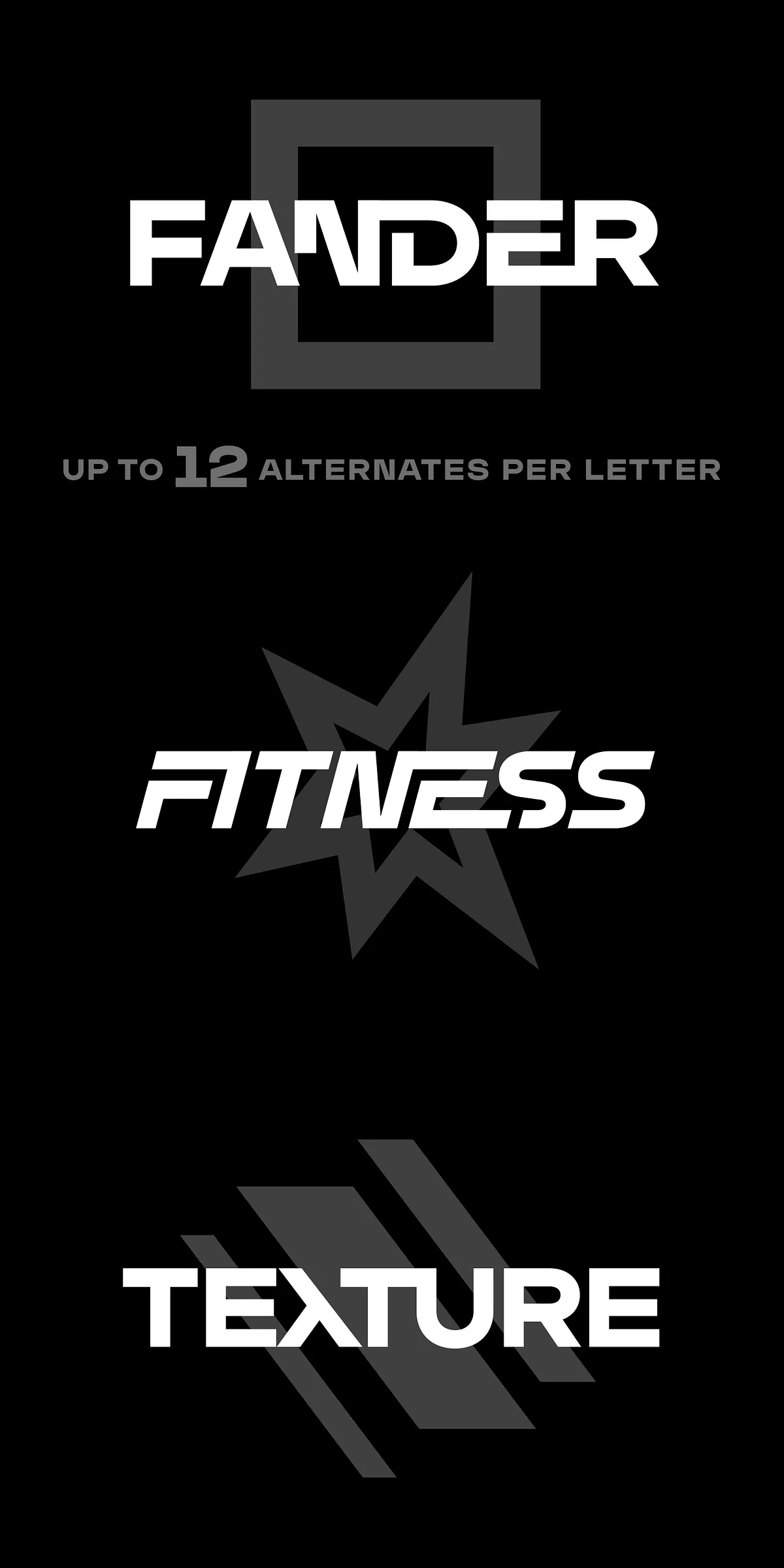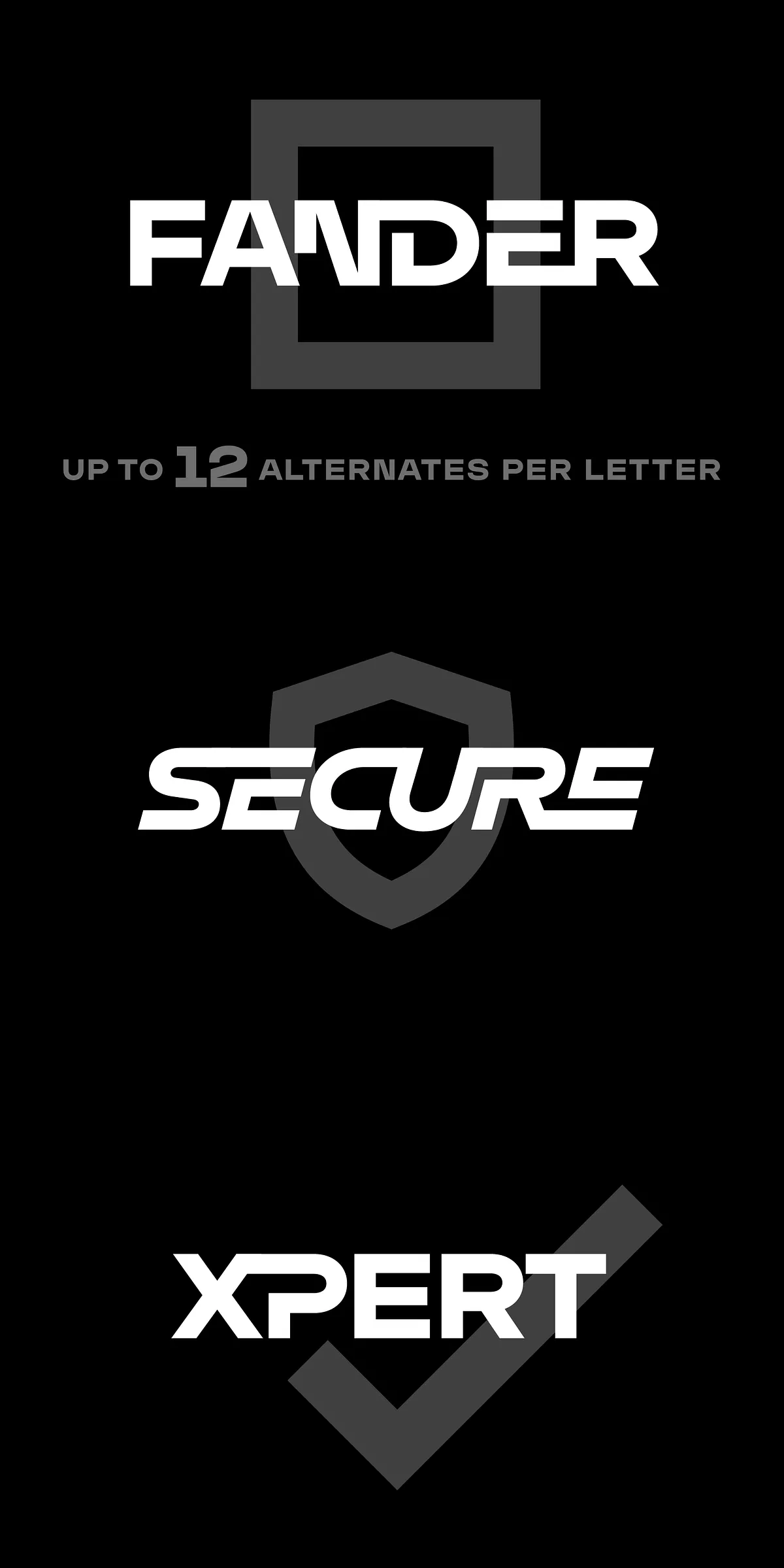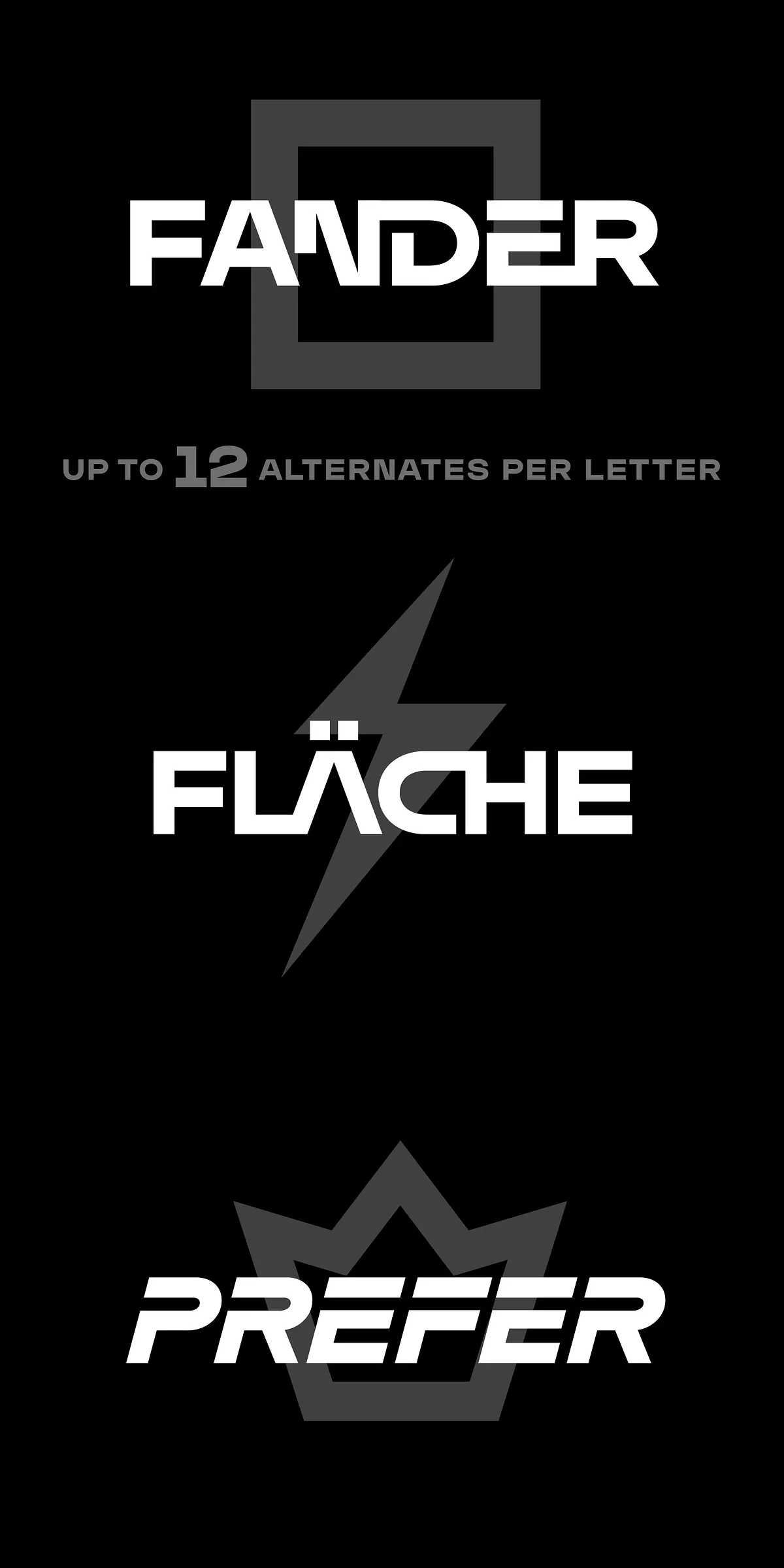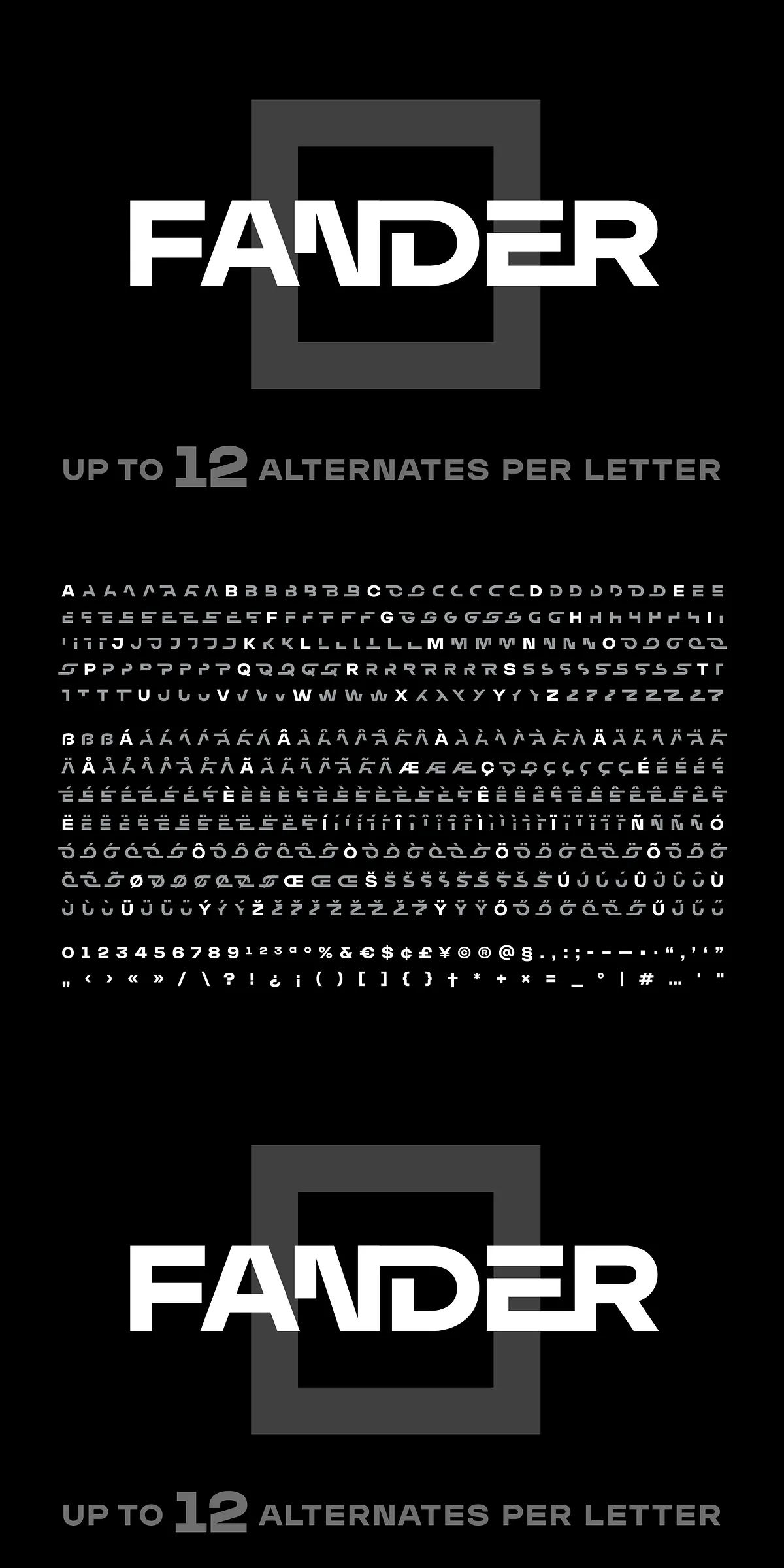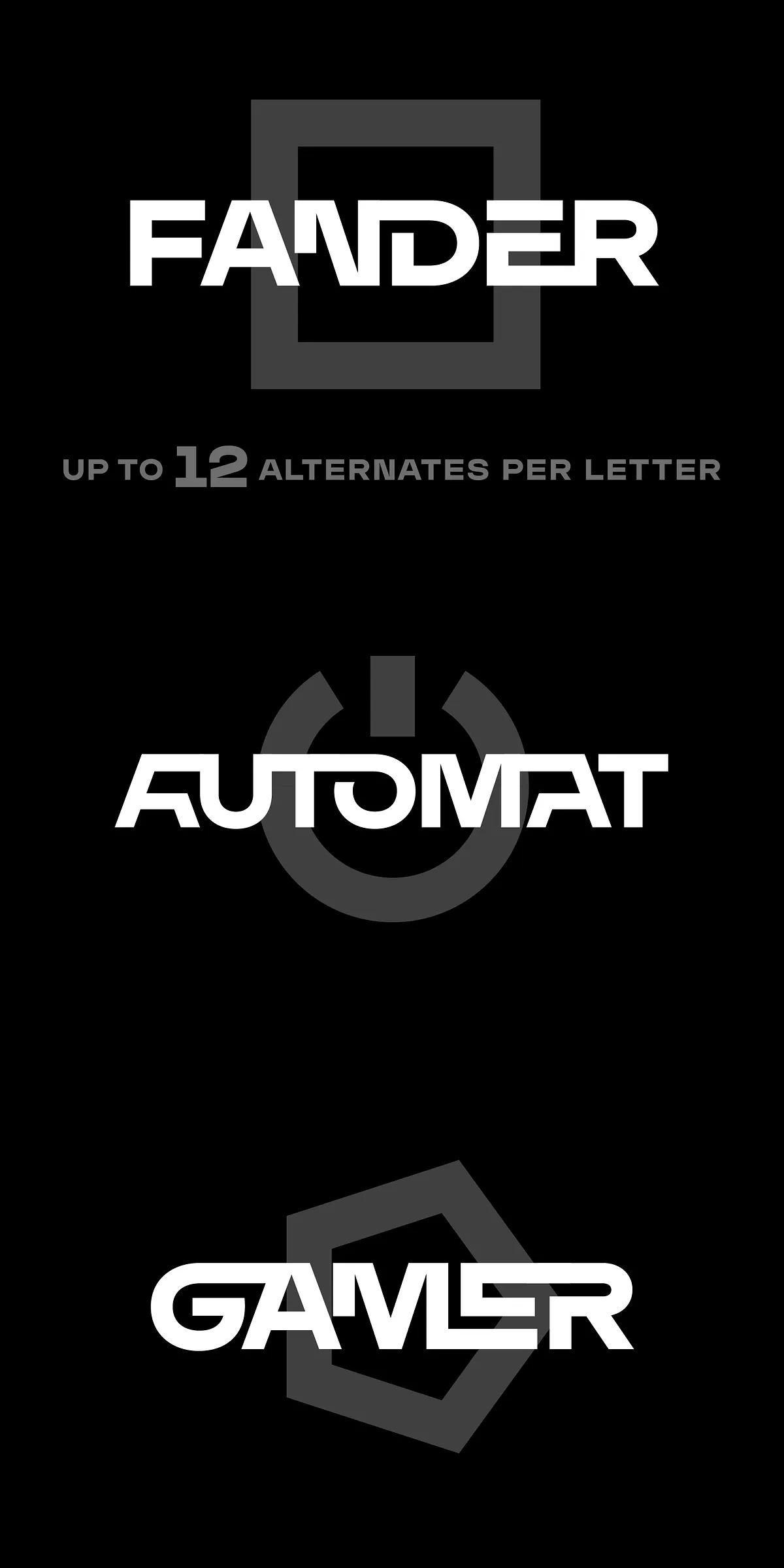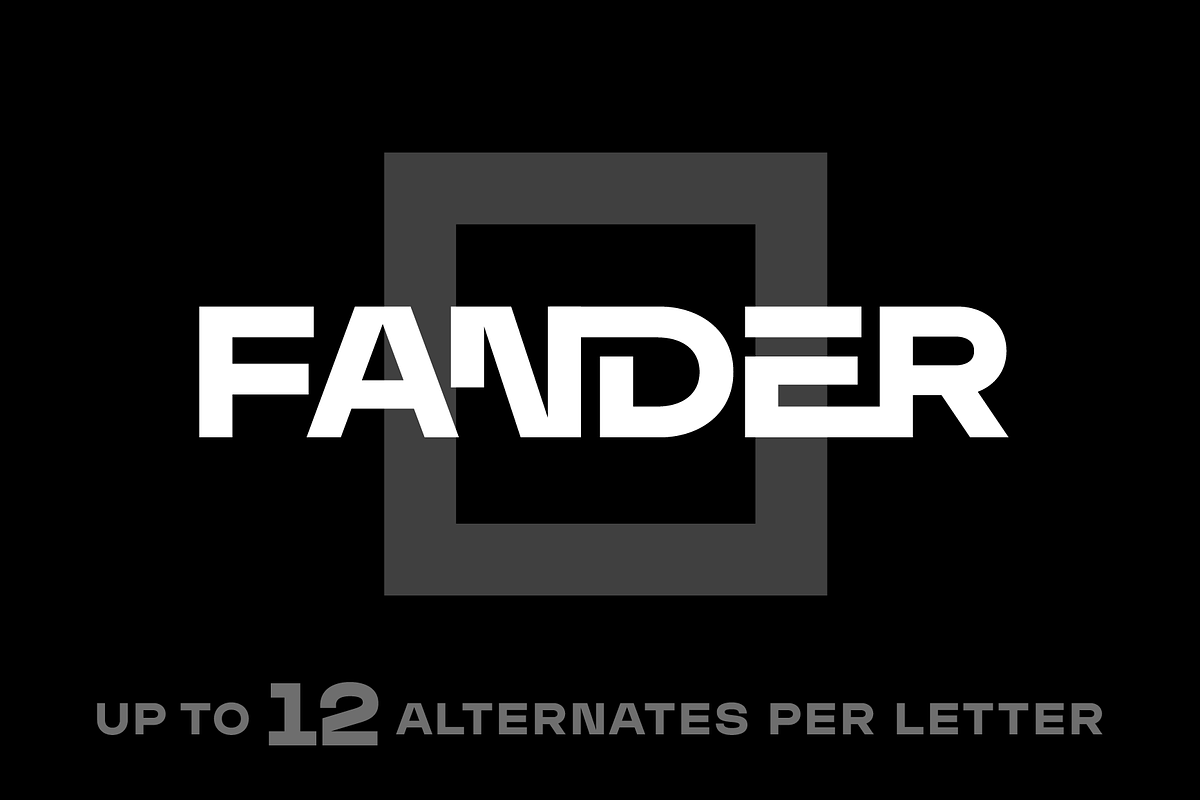
Step into the realm of refined simplicity with Fander, a meticulously crafted font family designed for creators who value clarity, elegance, and creative freedom. Whether you’re building a sleek brand identity, designing a bold wordmark, or crafting eye-catching titles and taglines, Fander delivers minimalist power with unmatched versatility.
Minimalism with Maximum Impact: Precision in Every Stroke
Fander isn’t just a typeface — it’s a design philosophy. Stripped of ornamentation, yet rich in intention, each character is engineered with clean lines, balanced proportions, and intentional negative space. This minimalist approach doesn’t mean bland — it means purposeful. Every letterform is designed to speak with confidence, clarity, and quiet sophistication.
But here’s where Fander truly transforms: with up to 12 alternates per letter, you’re no longer limited to a single look. Mix and match default and alternate characters to create unique, hand-curated combinations that reflect your creative vision. Want a more dynamic wordmark? Swap out a single letter. Need a subtle twist in your tagline? Replace a character with a custom alternate. The possibilities are endless — and entirely in your hands.
The Power of Alternates: Your Design Toolbox Built In
Each letter in the Fander font family comes with a rich library of stylistic variations. From subtle curve adjustments to bold structural shifts, these alternates give you real control over your design’s personality. Create a consistent yet unique typographic identity across a brand’s entire visual language.
Designed for Global Creativity — Full Multilingual Support
Fander speaks the world’s language. Its robust character set includes:
- Latin letters (including up to 12 alternates per character)
- Basic multilingual characters (supporting European and Latin-based languages)
- Numbers, punctuation, and special symbols
- Extra characters for enhanced typographic flexibility
This means you can confidently use Fander in international projects — from Scandinavian design studios to Southeast Asian branding teams — without compromise. Whether your text is in English, Spanish, German, or French, Fander maintains its clean, minimalist integrity and ensures flawless readability.
Where Fander Shines — The Perfect Fit for Modern Design
Fander is built for creators who need a clean, flexible foundation for high-impact visual storytelling. Ideal for:
- Brand Logos & Wordmarks: Create memorable, minimalist identities that stand out in competitive markets.
- Title & Subtitle Design: Elevate editorial spreads, book covers, and presentations with refined, readable typography.
- Taglines & Slogans: Use character alternates to add a personal, dynamic touch to marketing copy.
- Print & Digital Media: Perfect for business cards, posters, packaging, websites, and mobile UIs where minimalism meets impact.
- Typography-Driven Projects: Let the letterforms do the talking in identity systems, editorial design, and creative campaigns.
You don’t need to choose between simplicity and originality. With Fander, you get both — paired with a toolset that empowers you to create something uniquely yours.
Because true minimalism isn’t about removing everything — it’s about choosing exactly what matters.